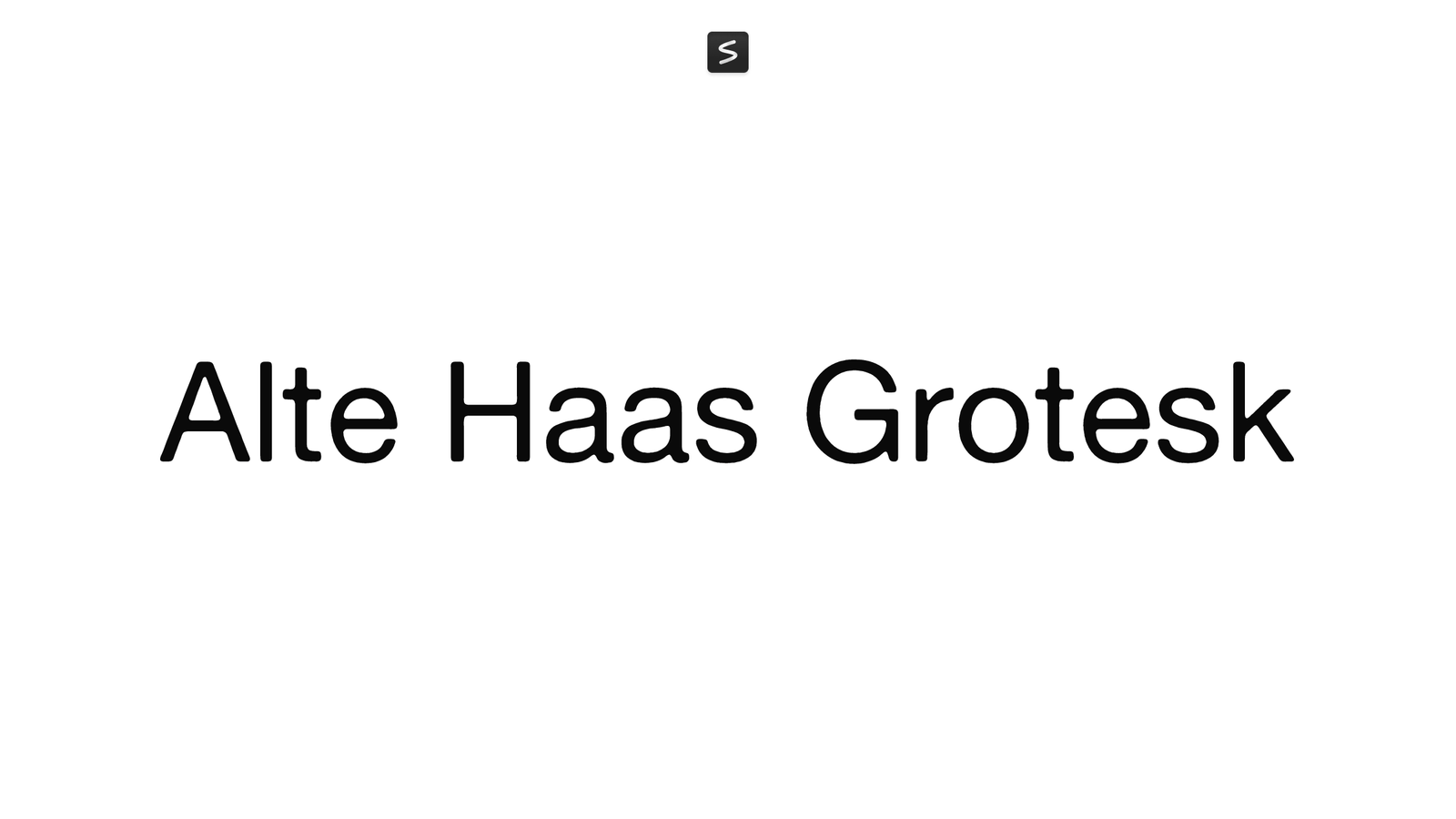
Alte Haas Grotesk is a geometric sans-serif designed by Yann Le Coroller, rooted in Swiss modernism and mid-century industrial design. Its letterforms are bold and square-edged, built with clean, rational proportions that feel both precise and approachable. The font carries the DNA of 1950s, 60s modernism while remaining useful for contemporary work.
The distinctive geometry and sturdy construction make Alte Haas Grotesk read well at most sizes, though it really commands attention as a display face. Its no-nonsense character suits everything from vintage-styled branding and editorial layouts to posters and signage that benefit from a sense of order and clarity. The font works equally well when you want to evoke that period-specific modernist feeling or when you simply need a grotesk with strong, legible character.